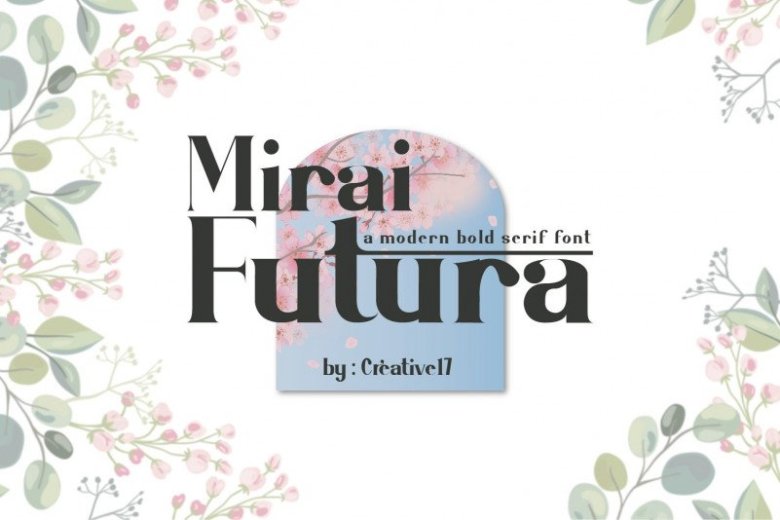
Mirai Futura Font
Mirai Futura Serif font is a modern serif ligature font with a mid century modern twist, inspired by modernism and accents of Art Nouveau. This font is perfect for large projects such as: logo design, newspaper titles, posters, business cards, invitation cards, greeting cards, and other design projects. feel luxurious when using this font.